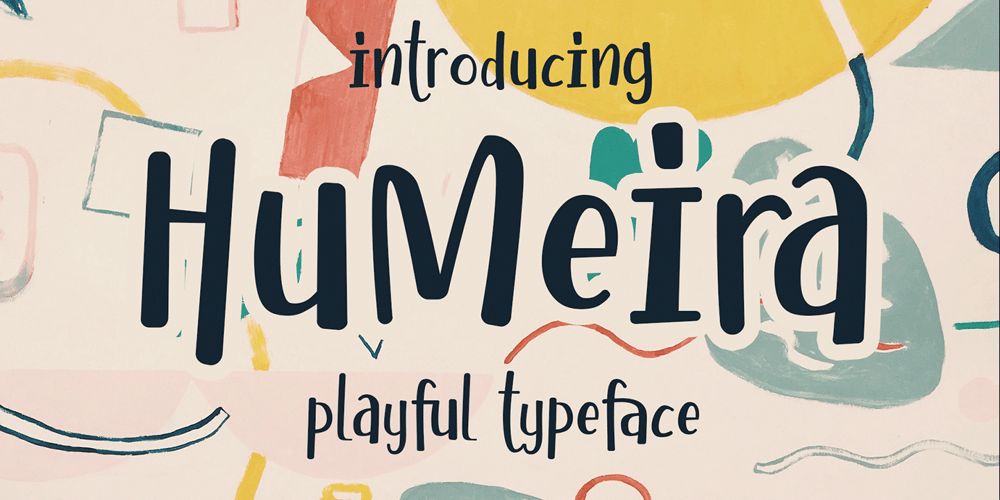
Humeira
Humeira font
Humeira Font Family was designed by Ahmad Ramzi Fahruddin and published by Arterfak Project. Humeira contains 3 styles and family package options. Humeira is a playfully font, inspired by handwriting lettering and doodle art movement. Designed with a manual brush and carefully vectorized with many alternates that you can apply to give handwritten looks! Humeira is perfect for headlines or body text. You have a regular and a bold weight that you can combine well. Humeira also has an Outline Shadow style with bolder contrast, funny and childish looks. Humeira font family is suitable for T-shirts, mugs, coffee cups, flyers, brochures, quotes, branding and more.